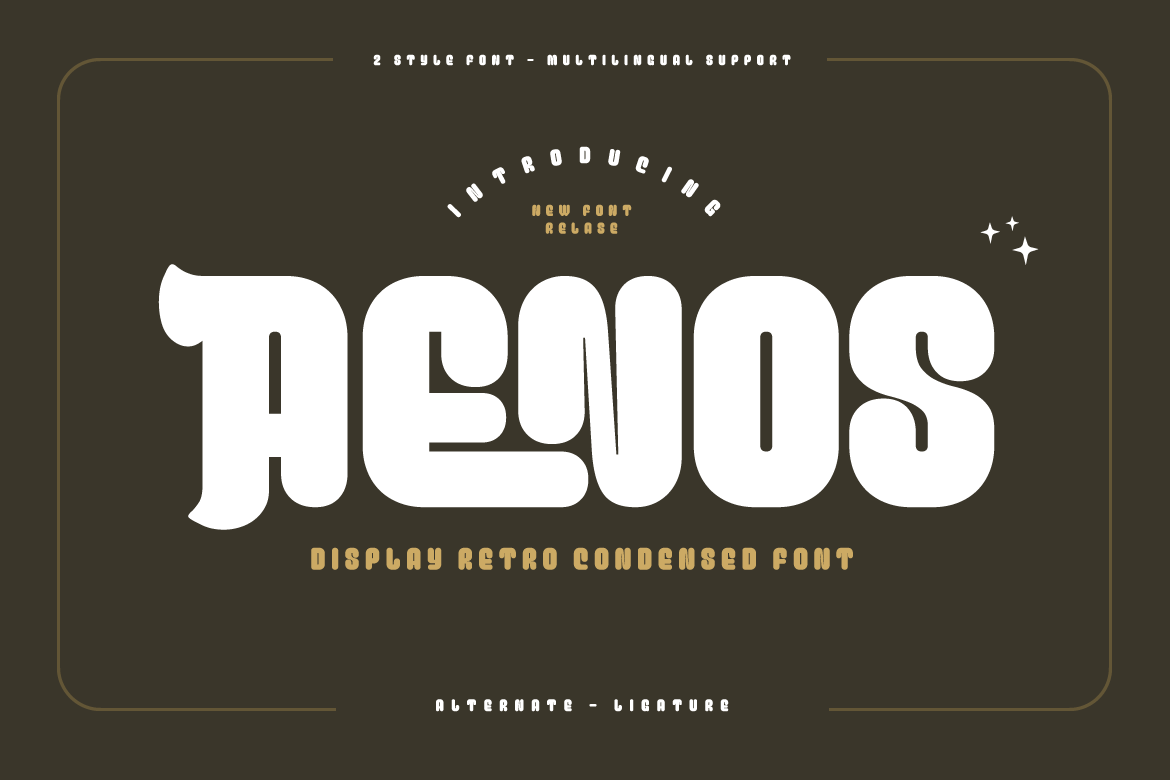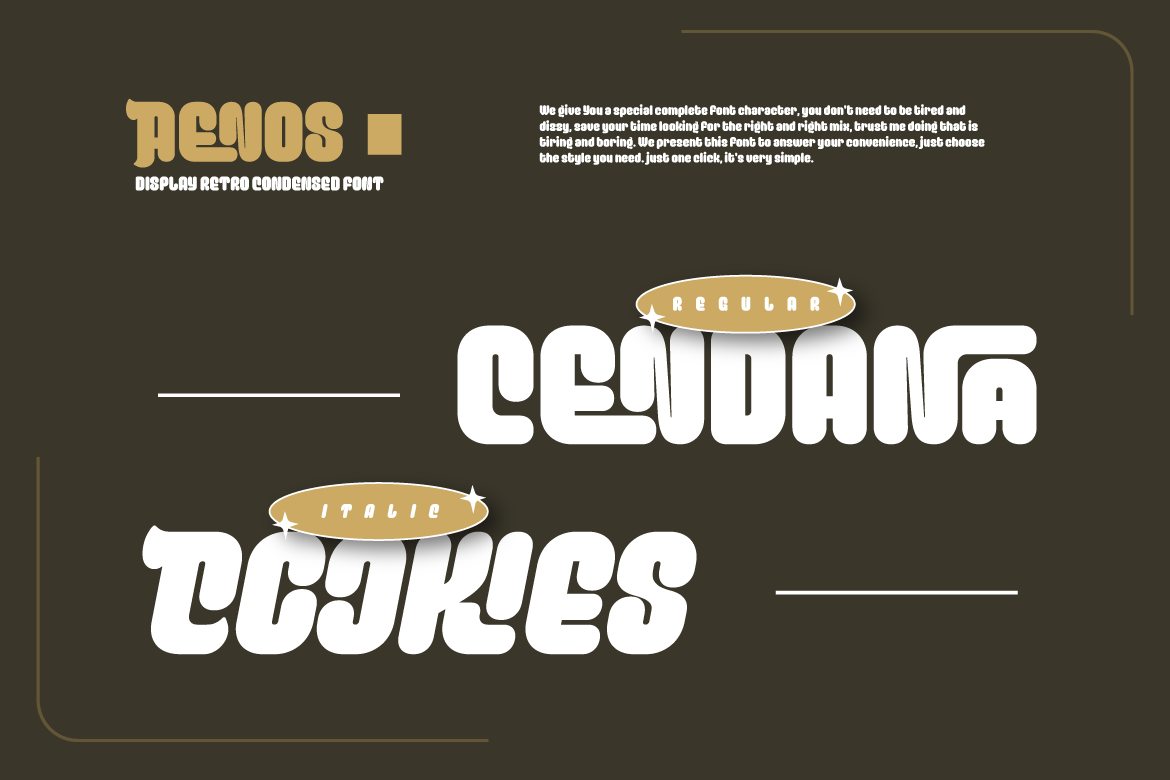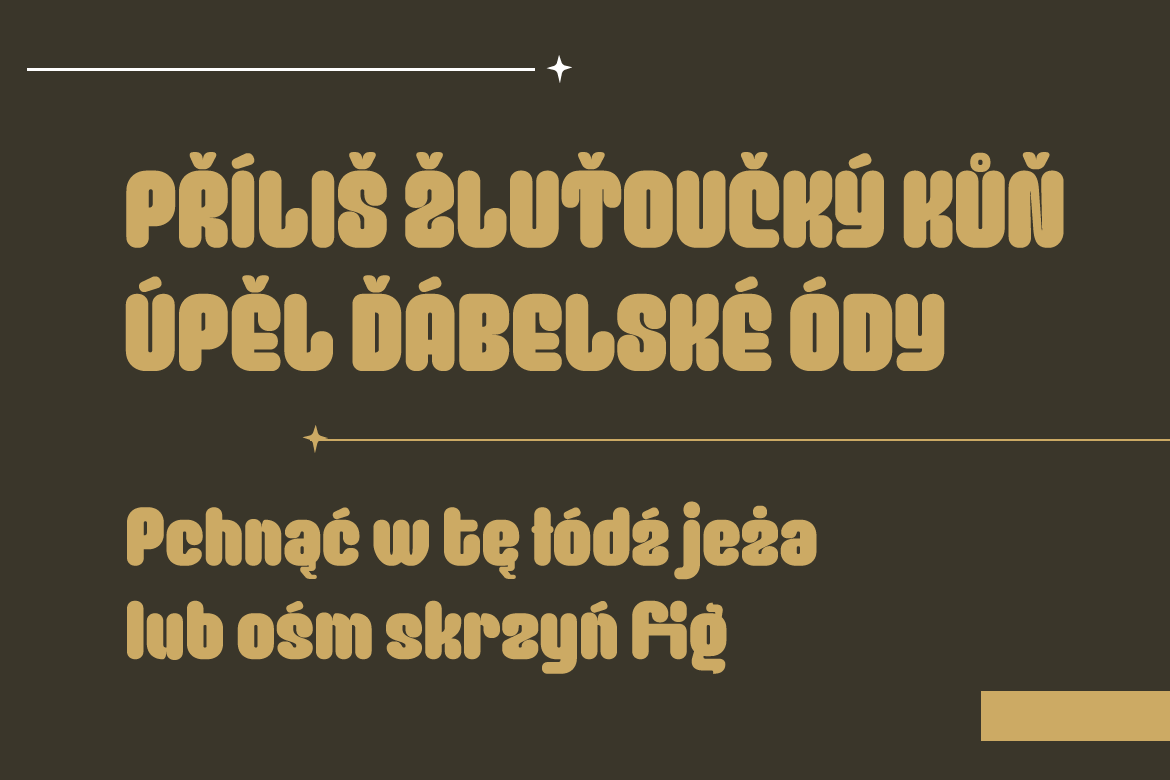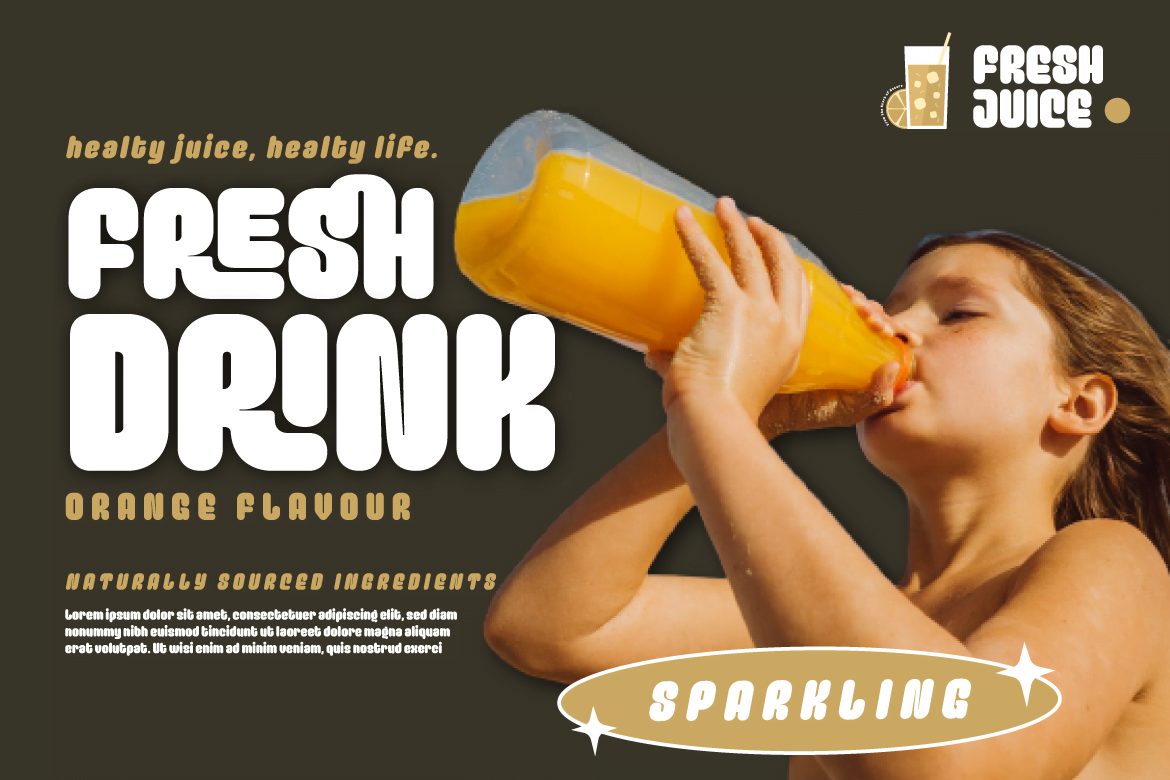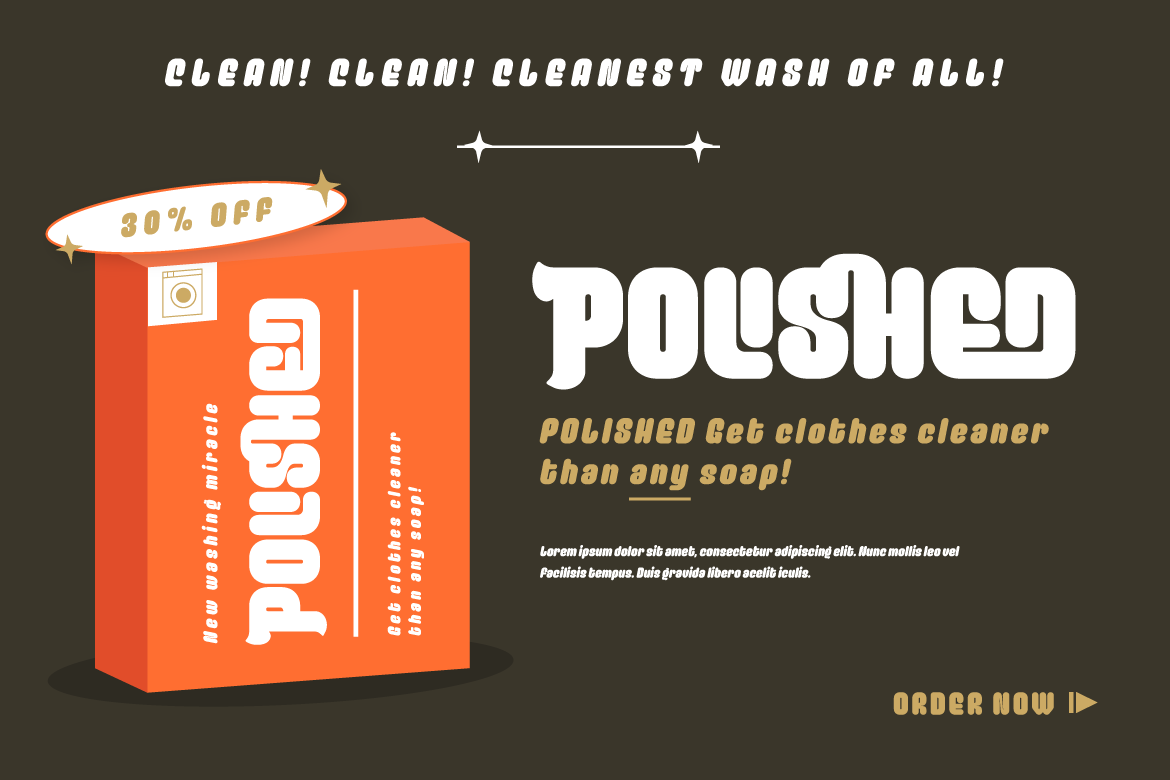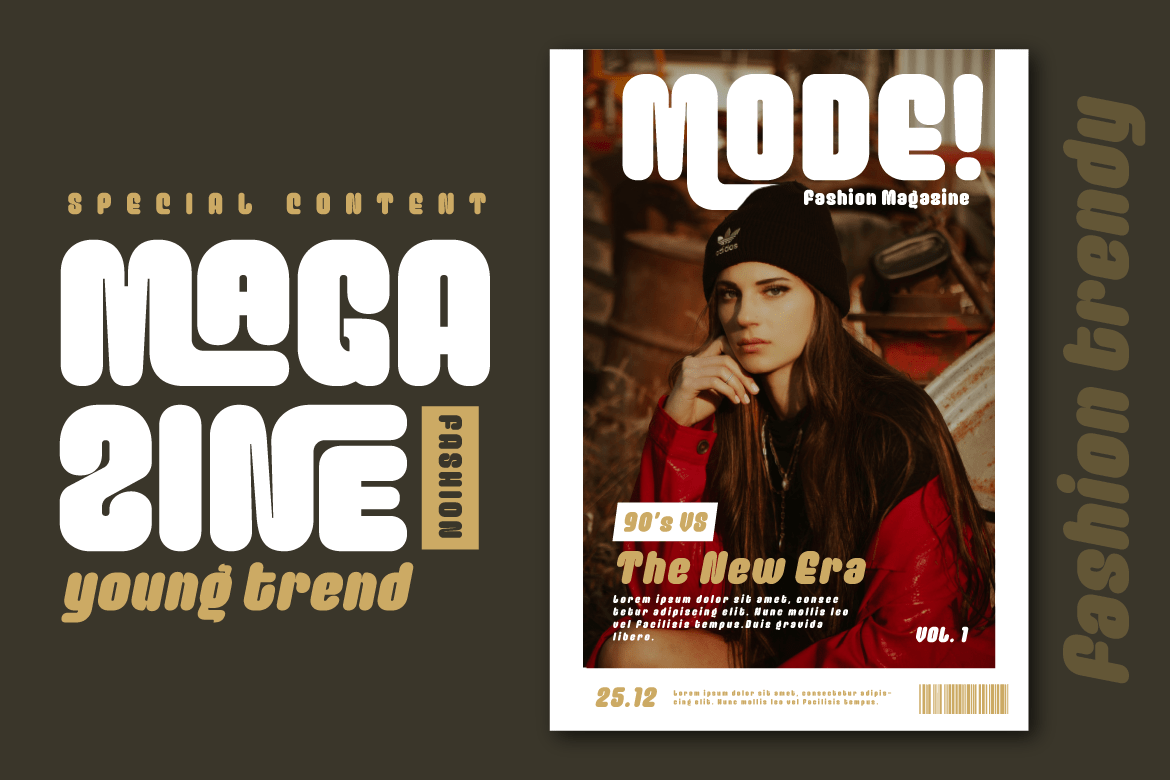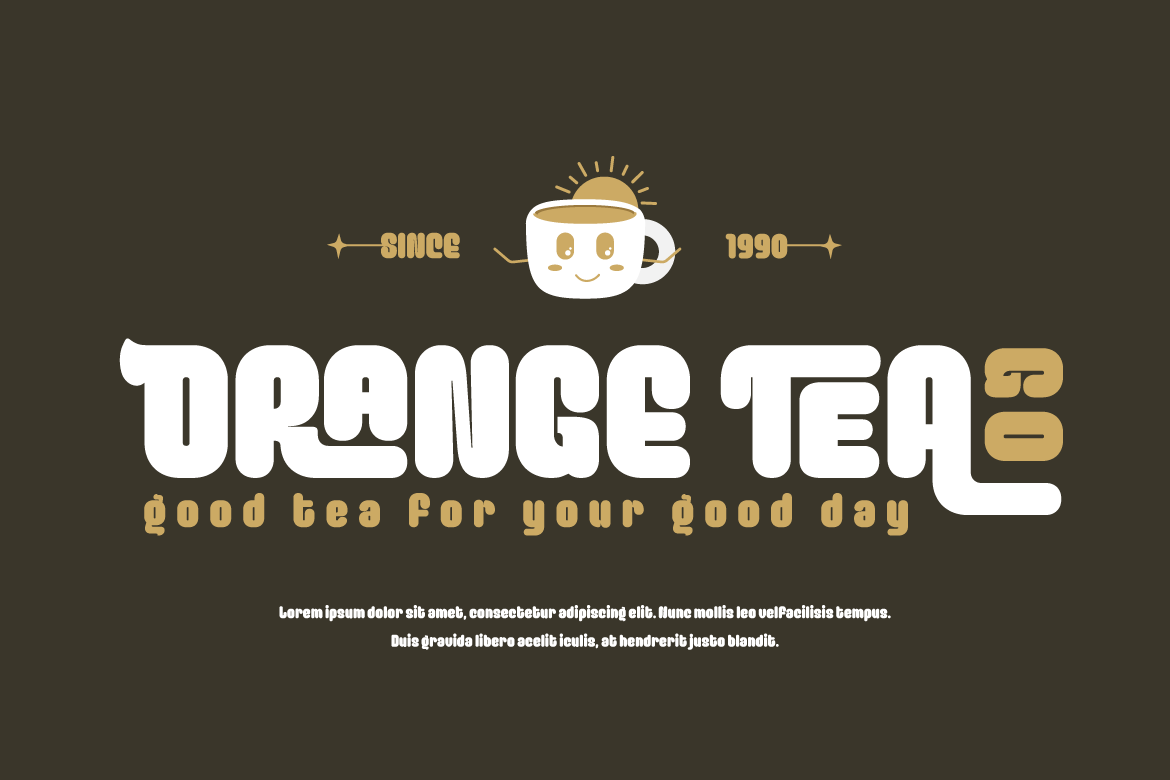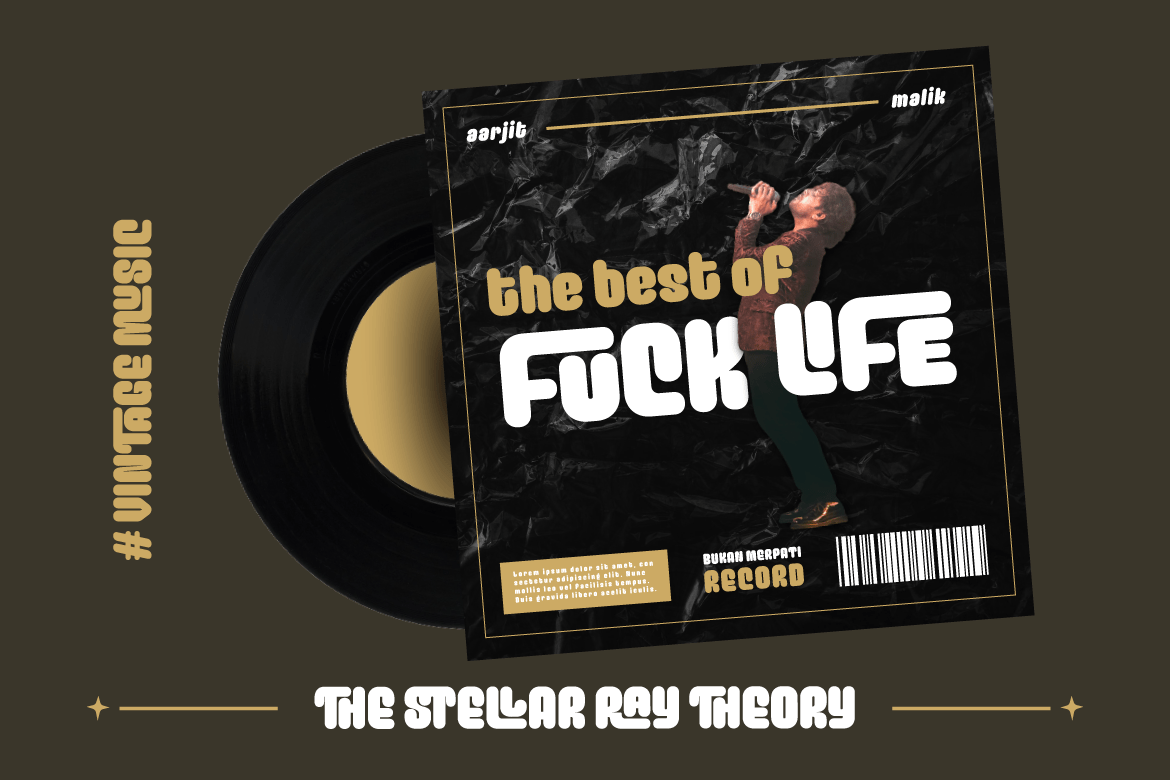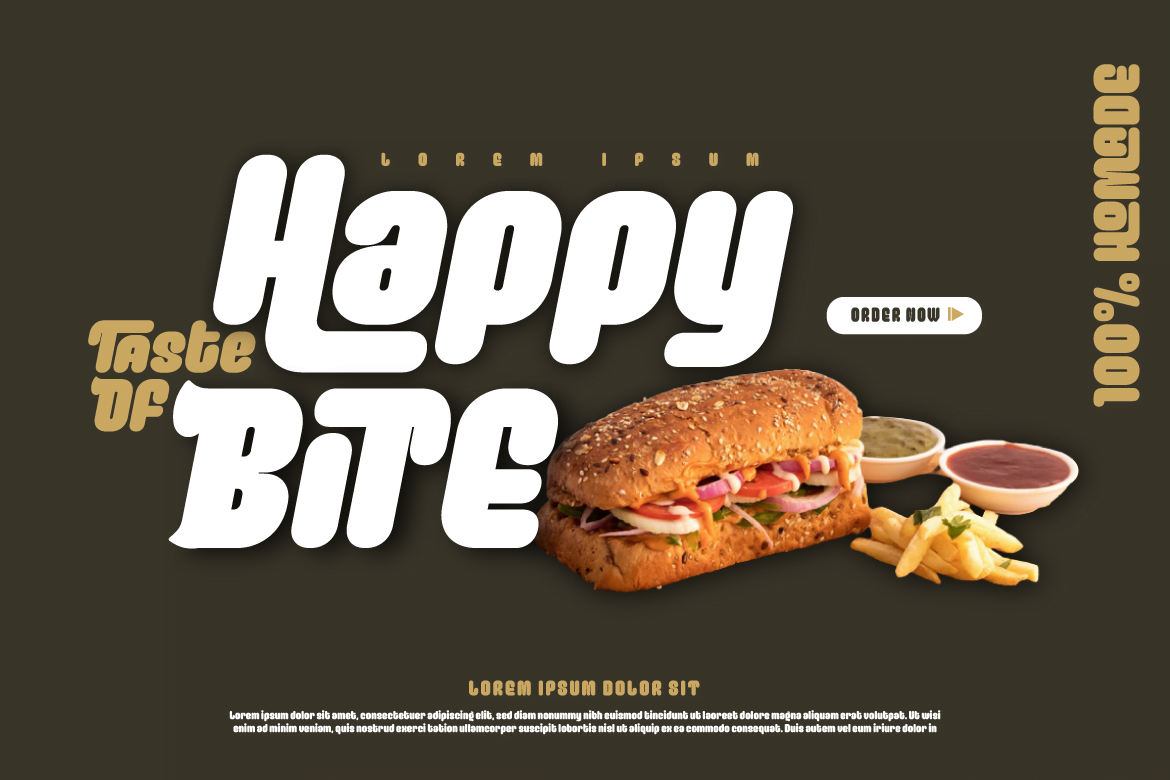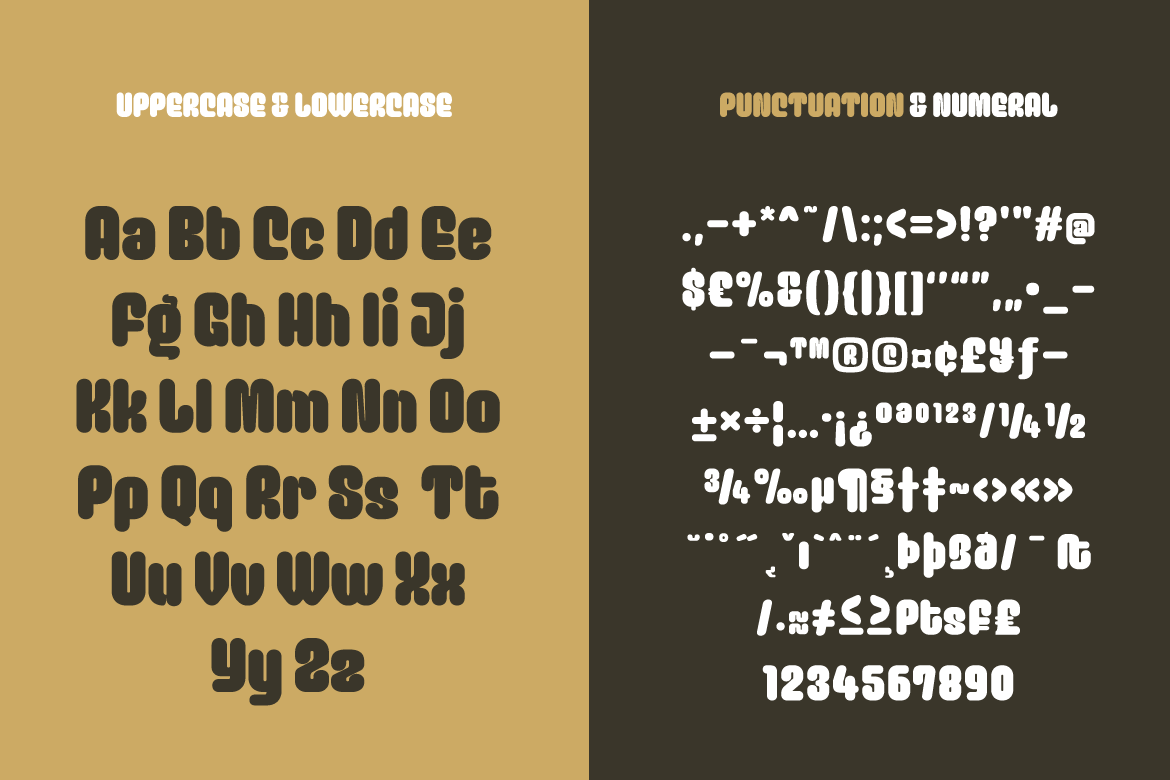
Aenos is a retro condensed display font, ideal for creating eye-catching titles and headlines that appear strong, unique, and clean. Its bold, sturdy appearance works well with medium or large font sizes while maintaining legibility. The Aenos font is also enriched with optional ligatures and Alternate. So use this font right away to make your project stand out.